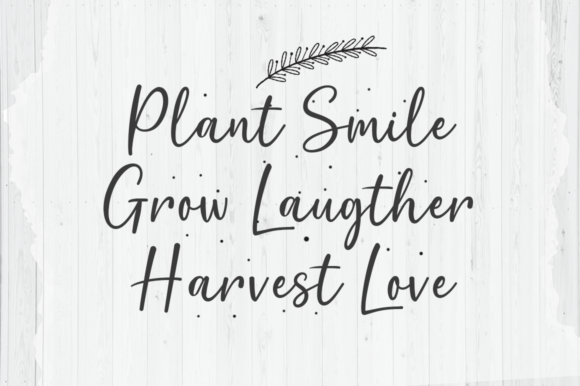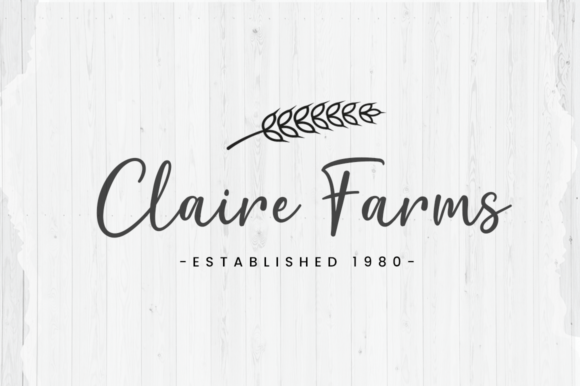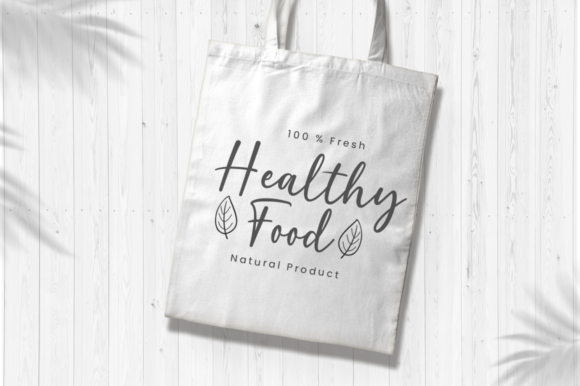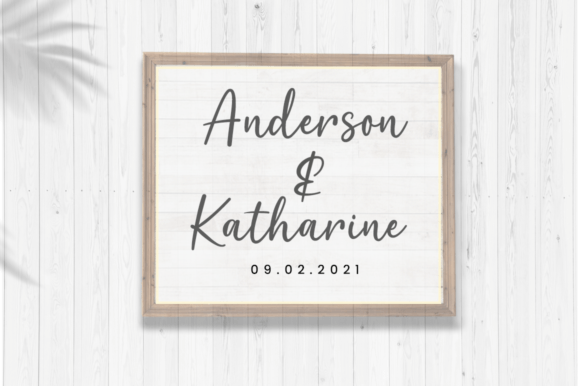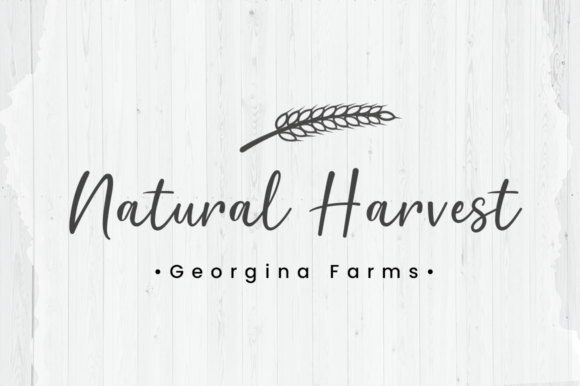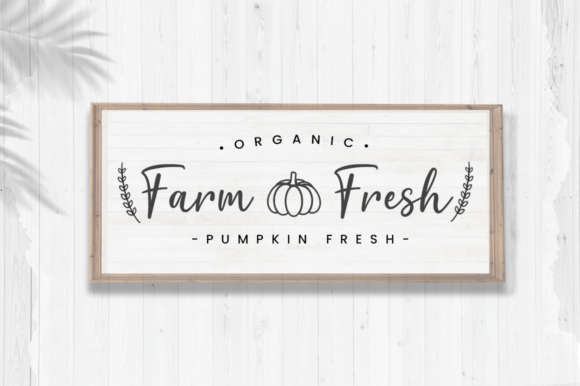
The Perfect Blend of Creativity and Craftsmanship
Do you ever find yourself staring at a blank canvas, waiting for inspiration to strike? For many designers, it’s that moment of pure creative bliss when the perfect idea finally comes to life. For those moments, we’re excited to introduce the Bountiful Harvest Font – a beautiful Handwritten font that’s sure to add a touch of elegance and whimsy to your designs.
Designed with versatility in mind, Bountiful Harvest Font is the perfect addition to any project. With vector additions for decorations, logos, and more, this font is perfect for creating stunning visual elements that will make your designs truly shine. Whether you’re designing for vinyl, weddings, website logos, Instagram posts, or products, Bountiful Harvest Font is the perfect tool to help you bring your ideas to life.
Bountiful Harvest Font Key Features
- Font Style: A traditional, elegant script font with a vintage touch, perfect for wedding invitations, greeting cards, and other special occasions.
- Unique Characteristics: The font features intricate flourishes, ornate details, and a flowing, cursive design that adds a touch of sophistication to any project.
Bountiful Harvest Font Review
I’ve had the chance to work with the Bountiful Harvest Font, and overall, it’s a delightful addition to any design project. ✨ The font’s rustic, vintage charm is perfect for creating a cozy, welcoming atmosphere. It’s great for food-related brands, garden-inspired designs, or anything that needs a touch of warmth.
The font’s characters are well-designed, with a good balance of legibility and aesthetic appeal. It’s available in a variety of weights, making it easy to find the perfect fit for your design. ✨ The font also supports a range of languages, which is a nice bonus.
While the Bountiful Harvest Font is a great choice for many projects, there are a few limitations to consider. ⚠️ The font may not be the best choice for projects that require a more modern or sleek aesthetic. Additionally, some characters may not be as well-designed as others, which can be noticeable in certain contexts.
Overall, I think the Bountiful Harvest Font is a solid choice for designers looking to add a touch of warmth and character to their projects. While it may not be perfect for every situation, it’s a great option for the right kind of design.
- Delightful, rustic aesthetic
- Perfect for food-related brands, garden-inspired designs
- Available in a variety of weights
- Supports a range of languages
- May not be the best choice for modern or sleek designs
Bountiful Harvest Font: A Practical Application Guide
To maximize the effectiveness of the Bountiful Harvest font, use it in contexts that evoke a sense of natural beauty and simplicity, such as:
- Designing packaging for a farm-to-table product.
- Creating a wedding invitation with a rustic or vintage theme.
- Developing a brand identity for a gardening or outdoor company.
Alternatives to Bountiful Harvest Font
Playfair Display is an elegant, high-end serif font that exudes luxury and sophistication. It’s ideal for use in high-end branding, advertising, and editorial design. Its intricate details and ornate flourishes make it a great choice for designers looking to add a touch of refinement to their projects. In comparison to Bountiful Harvest Font, Playfair Display has a more formal and classic feel, whereas Bountiful Harvest Font has a more rustic and earthy tone.
Great Vibes is a beautiful, cursive script font that’s perfect for adding a touch of whimsy and playfulness to your designs. It’s ideal for use in branding, packaging, and advertising, particularly in the food and beverage industry. While Bountiful Harvest Font has a more rustic feel, Great Vibes has a more relaxed and carefree vibe.